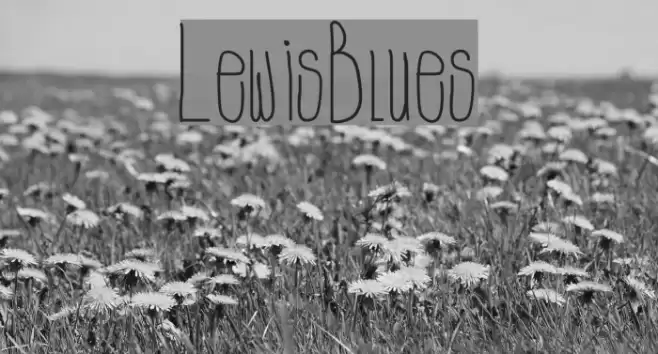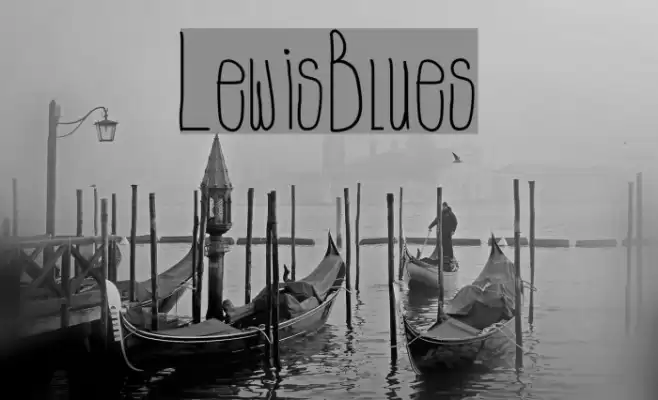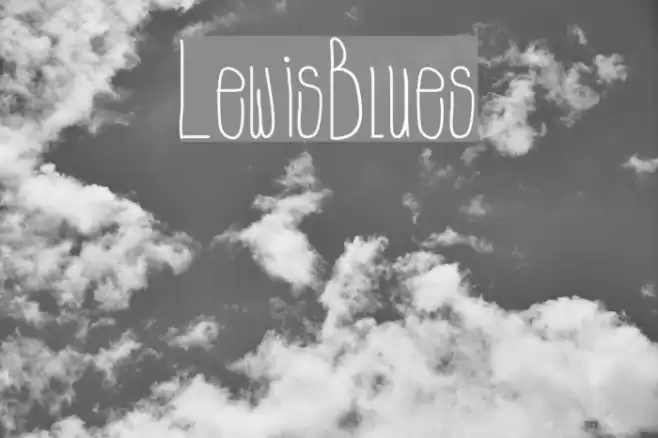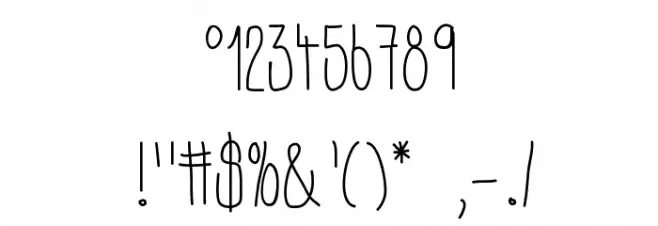
LewisBlues Font
LewisBlues Description
This font features a tall, narrow design with elongated characters that give it a unique, whimsical appearance. The strokes are consistent in width, providing a clean and modern look. The uppercase letters maintain a uniform height, while the lowercase letters have a playful, slightly irregular baseline. The numerals are distinct and easy to read, complementing the overall style. Special characters are well-integrated, adding to the font's versatility. This font's design is both artistic and functional, making it suitable for a variety of creative applications.
A tall, narrow font with a whimsical and modern style from Uncategorized fonts.
- Proposed Projects: Ideal for creative projects such as posters, invitations, and branding materials where a unique and artistic touch is desired.